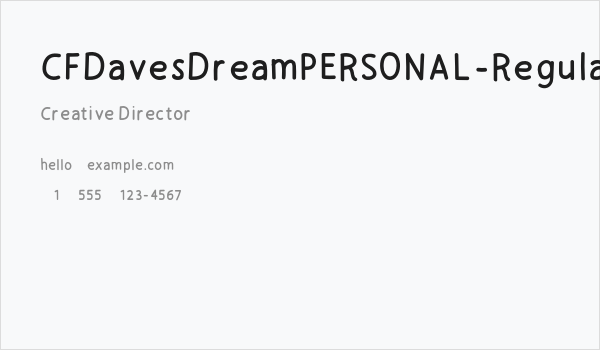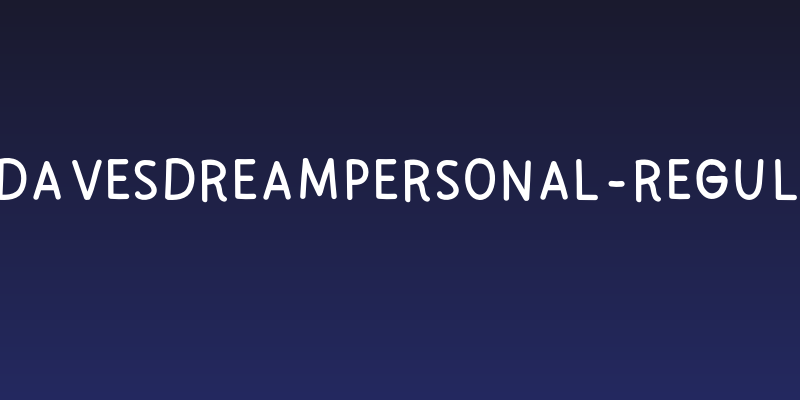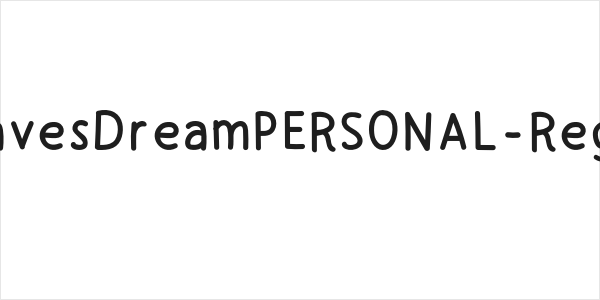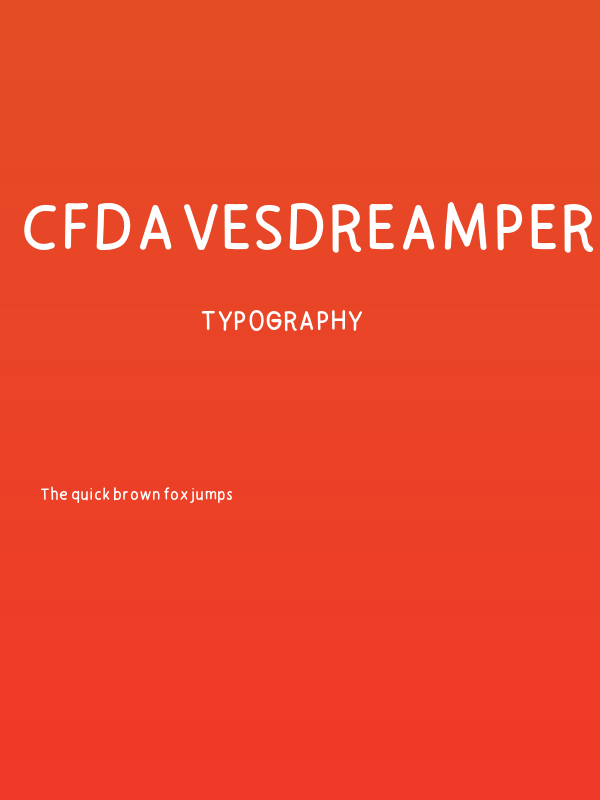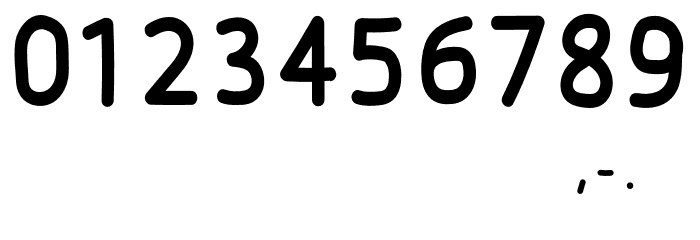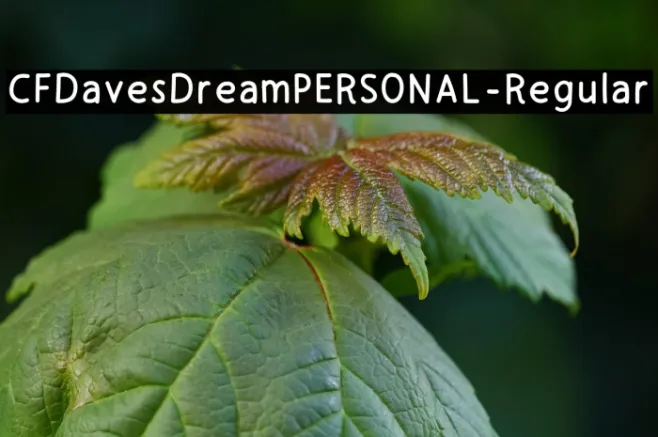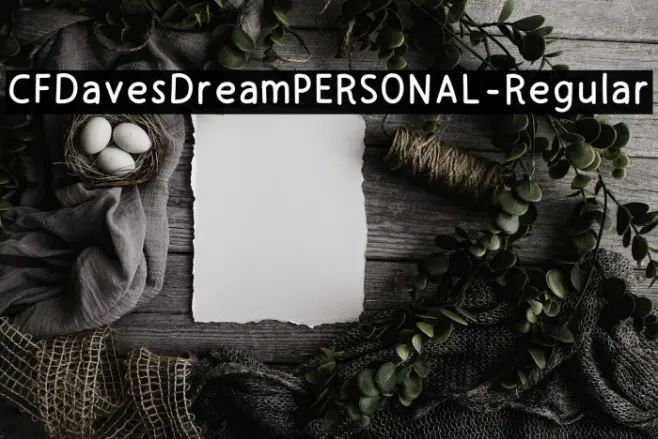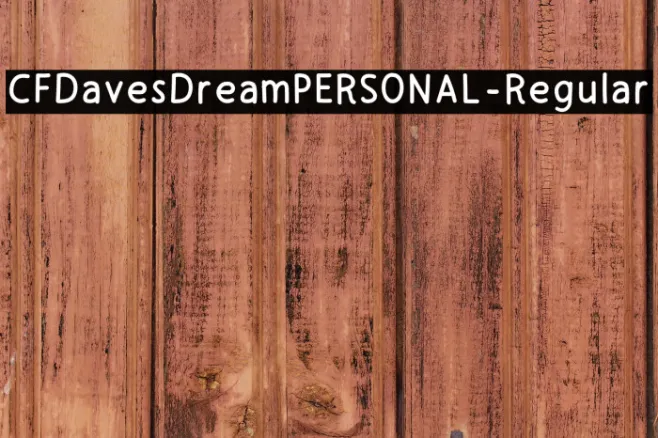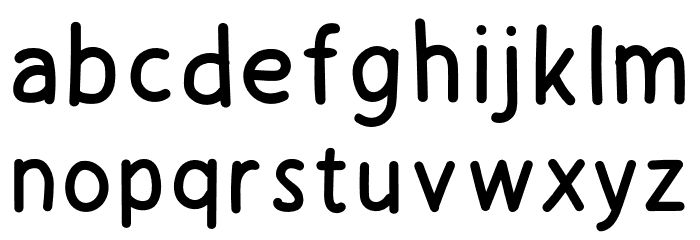
CFDavesDreamPERSONAL-Regular Font
CFDavesDreamPERSONAL-Regular Description
This font features a playful and informal style with rounded edges and a hand-drawn appearance. The characters are slightly irregular, giving it a whimsical and friendly feel. The uppercase and lowercase letters maintain a consistent height, contributing to its readability. Numbers and special characters are designed with the same playful touch, making them suitable for casual and creative projects. The overall design is approachable and versatile, ideal for adding a personal touch to various design works.
| Use Case | Headlines, Logos, Informal text |
| Proposed Projects | Ideal for children's books, greeting cards, playful branding, and casual invitations. |